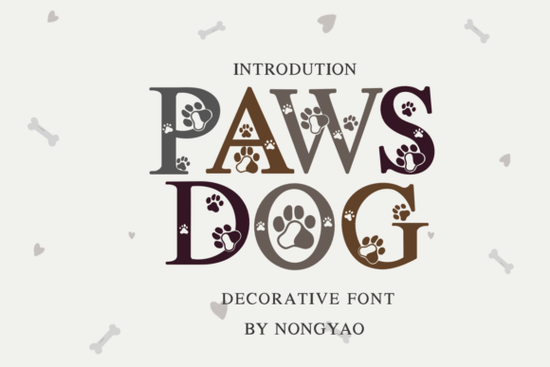
If you're looking for a friendly, hand-drawn decorative font that feels warm and approachable especially for pet-themed or lighthearted designs the Paws Dog Font is a thoughtful choice. It’s not overly stylized or hard to read, but it carries just enough charm to stand out on greeting cards, journal pages, or small-batch merchandise. Unlike some decorative fonts that sacrifice legibility for flair, Paws Dog Font keeps clarity in mind while still offering personality making it practical for both digital and print use.
What kinds of projects work well with Paws Dog Font?
This font shines where warmth and whimsy matter most. Think handwritten-style quotes on Instagram posts, cheerful labels for dog treat jars, or playful headers on printable planner pages. Because it’s designed with soft curves and open letterforms, it pairs nicely with photos of pets, summer scenes, or cozy home settings. Crafters often use it for vinyl-cut decals on mugs or tote bags especially when the message is gentle, like “Good Boy” or “Adopted & Adored.” Print-on-demand sellers find it useful for seasonal collections too: spring birthdays, National Dog Day, or even custom pet memorial items.
It’s also flexible enough to mix with cleaner sans-serifs or script fonts. Try pairing Paws Dog Font with a simple sans-serif for body text, or layer it behind a subtle watercolor texture for greeting cards. Since it includes uppercase letters, numbers, and basic punctuation, you won’t need extra font files just to add dates or short phrases.
How does it compare to other decorative fonts on Creative Fabrica?
Like Hi Summer Font, Paws Dog Font leans into casual, sunlit energy but with a more grounded, pet-friendly tone. Where Mermaid Summer Font evokes ocean breezes and seashells, Paws Dog feels like a walk through the park with your favorite pup. And unlike Alex Font, which has a bolder, more structured hand-lettered look, Paws Dog offers softer edges and slightly more relaxed spacing ideal if you want friendliness over formality.
All four fonts belong to Creative Fabrica’s broader collection of decorative fonts, but each serves a different emotional cue. Choosing between them comes down to your project’s mood and audience not technical specs. For example, if you’re designing a vet clinic’s newsletter or a rescue group’s fundraiser flyer, Paws Dog adds sincerity without seeming childish. That balance matters when your goal is connection, not just decoration.
For designers who license fonts regularly, it’s worth noting that Paws Dog is a single-style font (no bold or italic variants), so it works best as a headline, title, or short accent text not long paragraphs. That’s common for decorative fonts, and it’s why pairing it thoughtfully matters more than trying to force it into every role.
- Test readability at smaller sizes try it at 18–24pt for printed cards or 36–48pt for social banners.
- Pair it with neutral colors (cream, sage, warm gray) or soft pastels not high-contrast combos like neon yellow on black, which can overwhelm its gentle style.
One more thing: if you’d like to see how Paws Dog Font looks alongside real user projects, Creative Fabrica’s community gallery shows examples from makers who’ve used it on enamel pins, fabric patches, and printable pet birthday kits. Seeing how others adapt it helps spark ideas without copying and that’s where your own voice really comes through.